From June 13th 2025, Outernet London plays host to Like Nature, We Persist—a bold, immersive installation by internationally renowned artist and designer Kris Andrew Small. Situated in the heart of London and forming part of the city’s official Pride celebrations, the show is both a vivid tribute to queerness and a universal meditation on humanity’s connection as a whole.
At the core of Small’s work for this installation is a call for empathy. In a world too often defined by fear and division, Like Nature, We Persist seeks to remind us of what binds us together—our shared human experience and our deep, often neglected connection to the natural world. Through this four-part installation, Small transforms the raw energy of life—its chaos, beauty, and fragility—into an experience that is both contemplative and exciting.
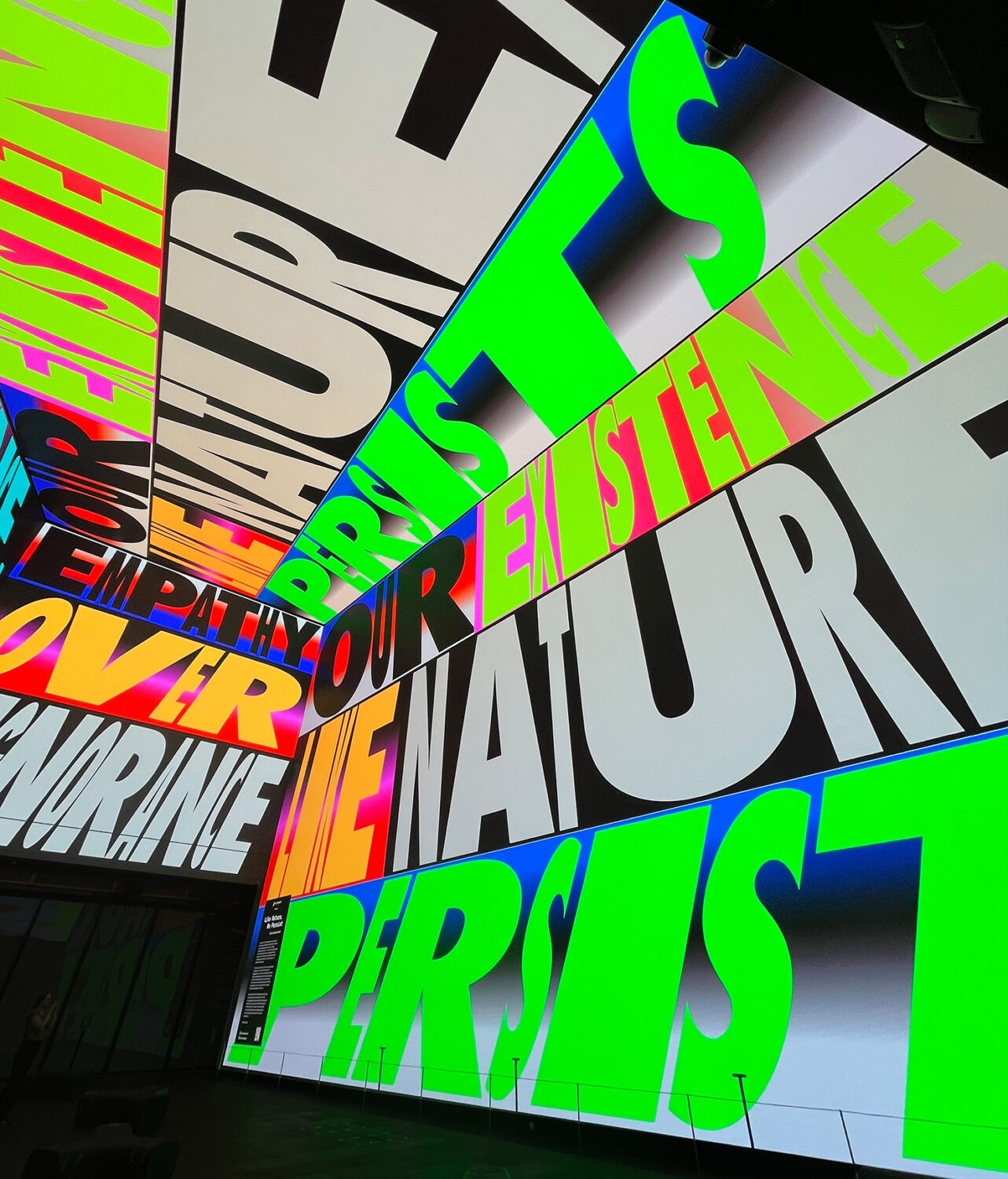
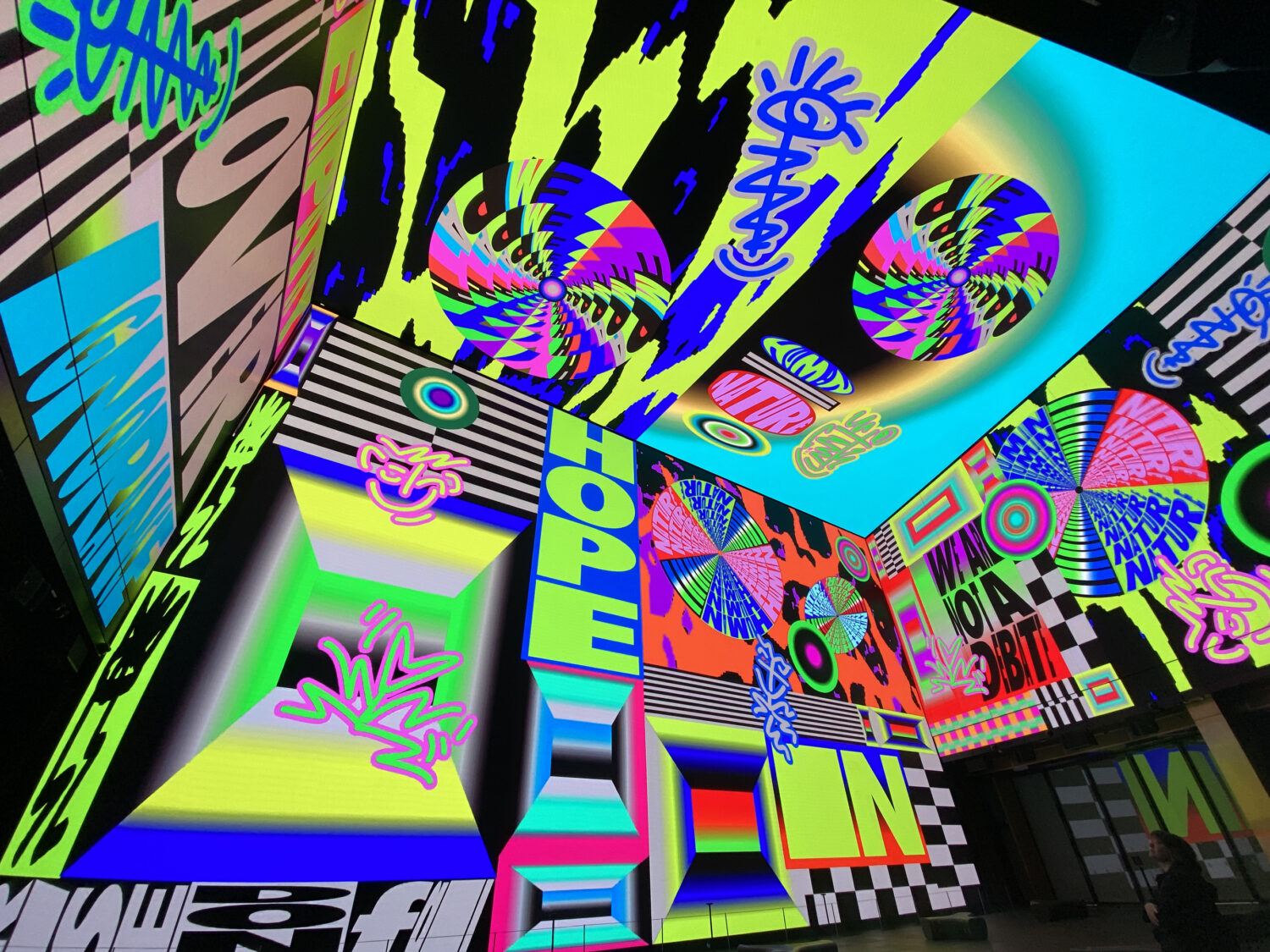
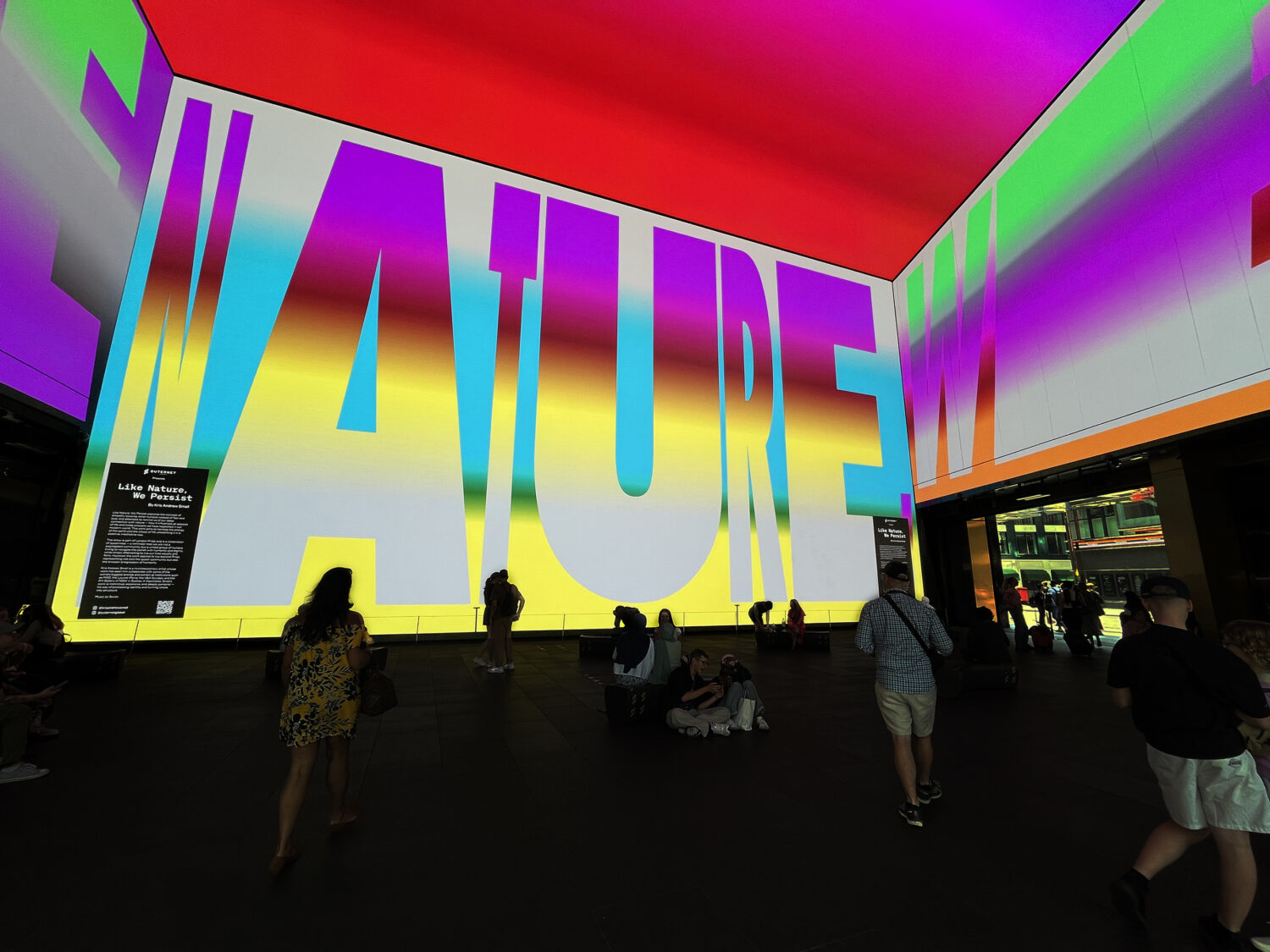
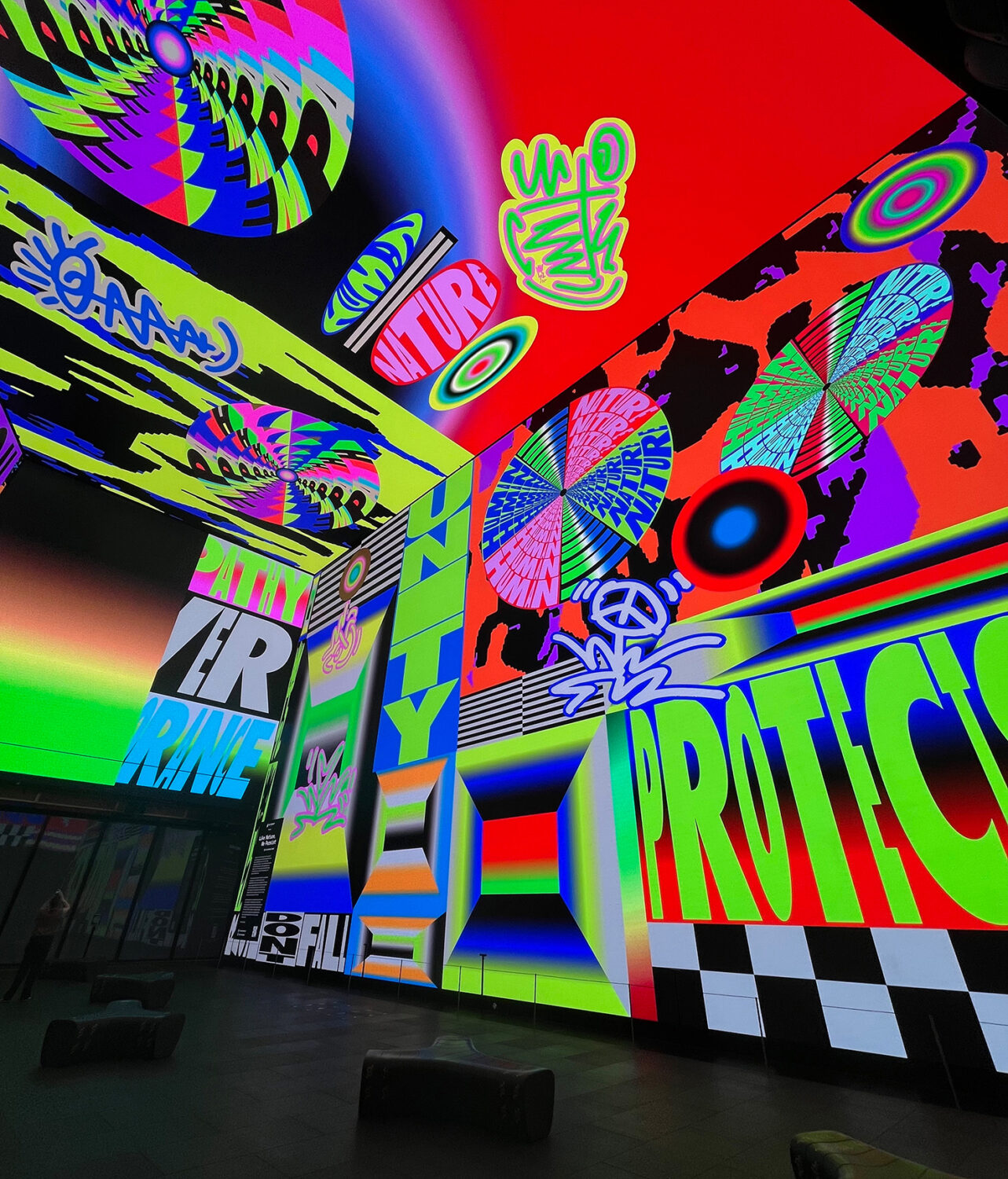
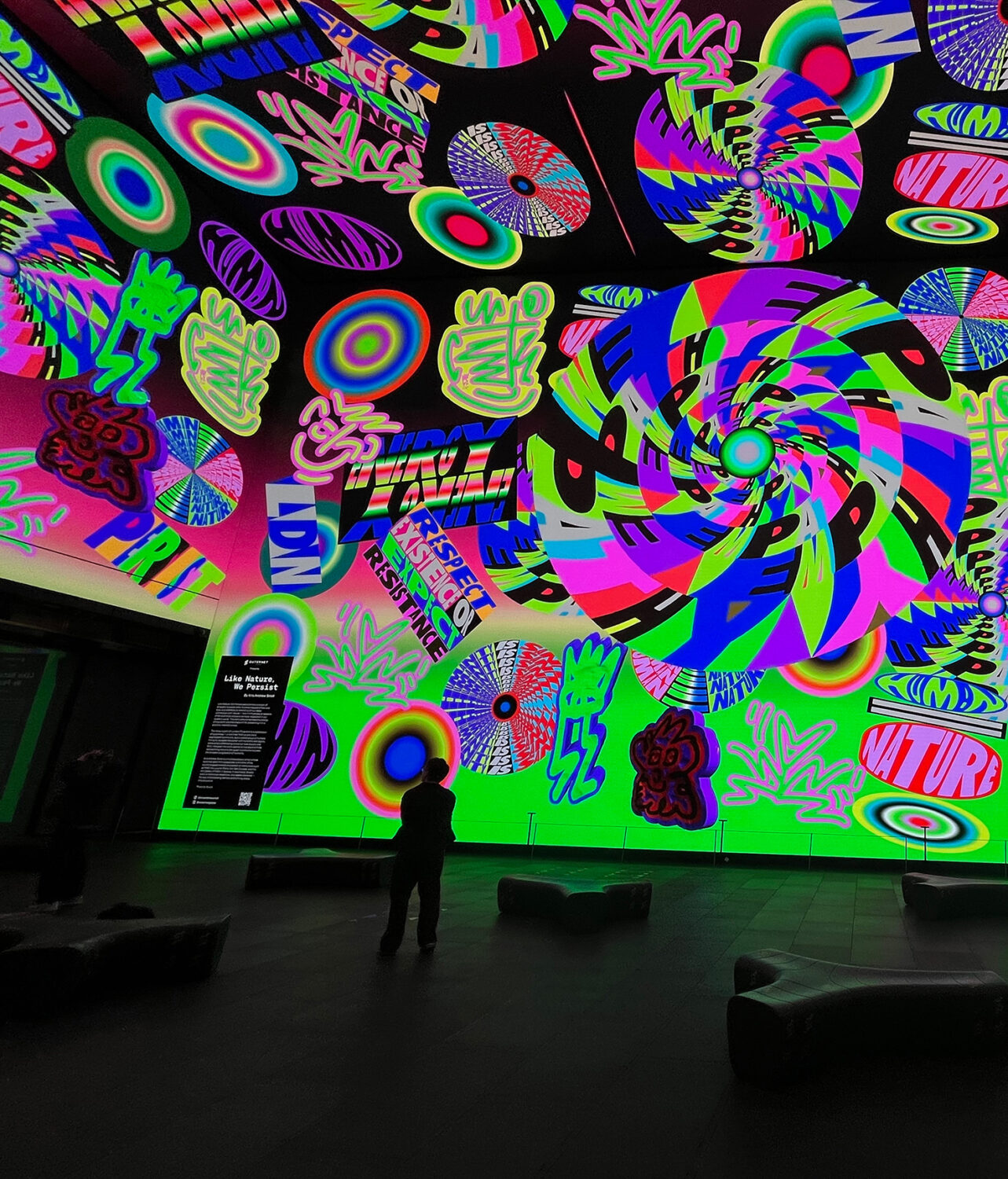
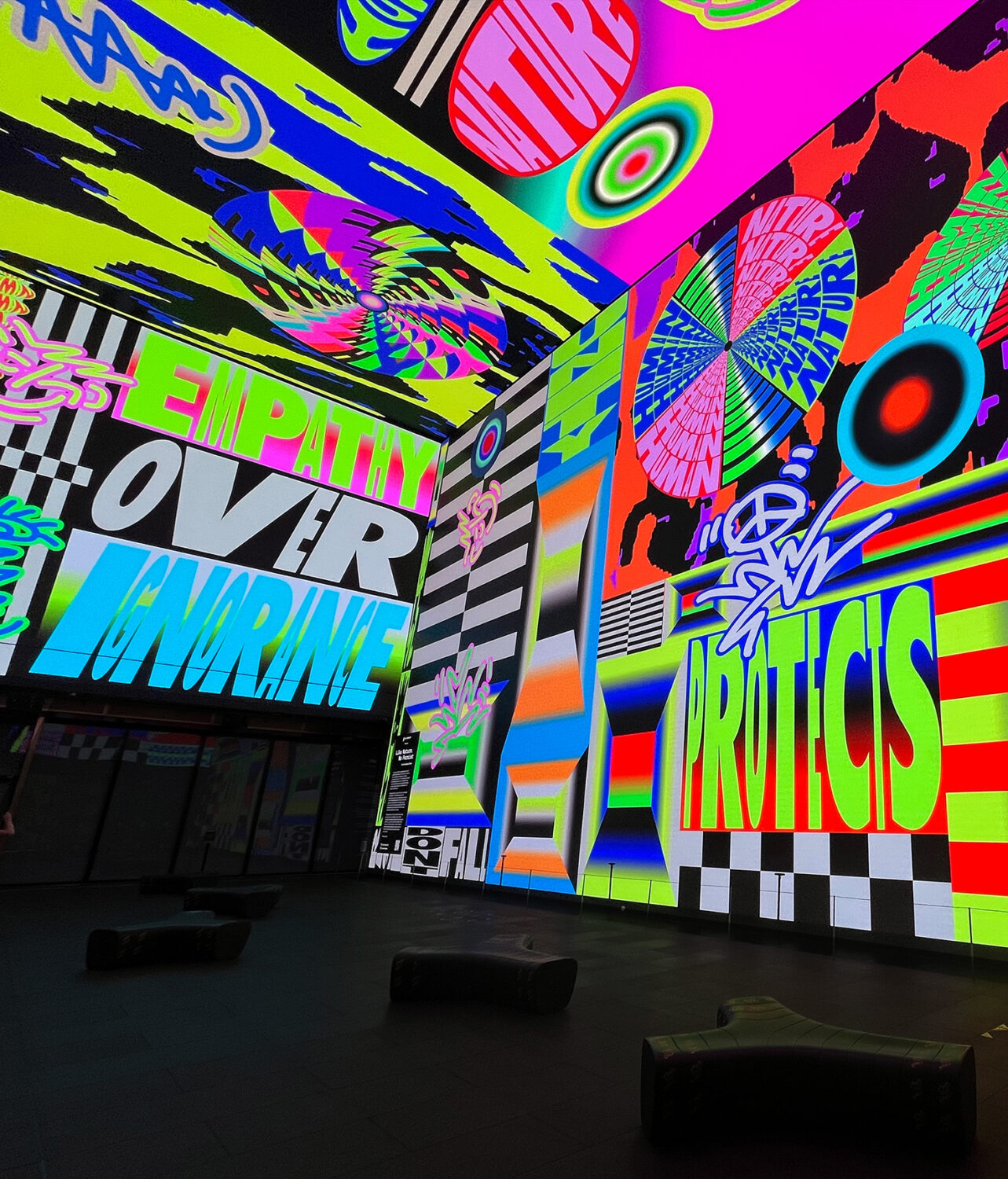
Visitors move through a structured narrative that begins with quiet introspection, then builds into a crescendo of colour, sound, and motion. The second phase channels the chaos of contemporary life, while the third turns to nature as a stabilising force—a reminder of the order that can be found within disorder. The journey ends with a call to action: a push to reconnect.
Small is a maximalist in every sense, and Outernet London’s gigantic digital screens now operate as a canvas for Small’s creative expression. The visual worlds that he creates are typically a collision of radical composition, dynamic typography, and electric colour. So whilst rooted in the spirit of Pride, Like Nature, We Persist aims to resonate far beyond it—celebrating queerness not as something isolated, but as an expression of humanity’s broader potential for unity.